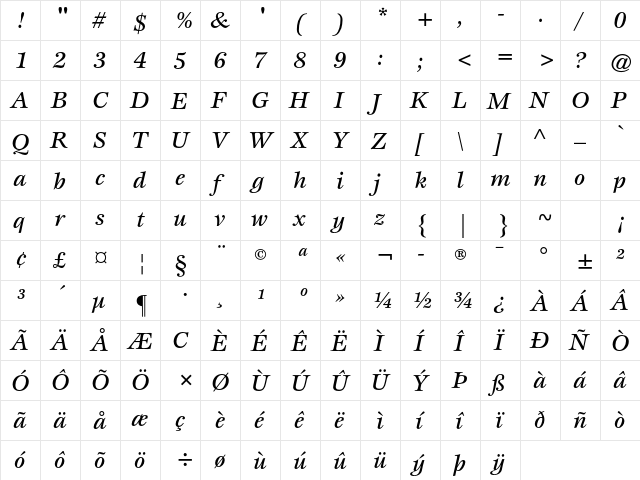
ITC Esprit Std Medium Italic Font Preview
ITC Esprit Std Medium Italic
ITC Esprit Std Medium Italic Font Details
| Style | Medium Italic |
| Designer | Jovica Veljovic |
Design Context for ITC Esprit Std Typeface
ITC Esprit Std takes a measured approach to typography — its balanced proportions and neutral character make it a reliable workhorse for both digital and print work. Its italic angle brings a sense of urgency and motion to the letterforms.
Pro Tip: Use ITC Esprit Std for emphasis, pull quotes, and subheadings where its slanted energy can add rhythm to the layout.